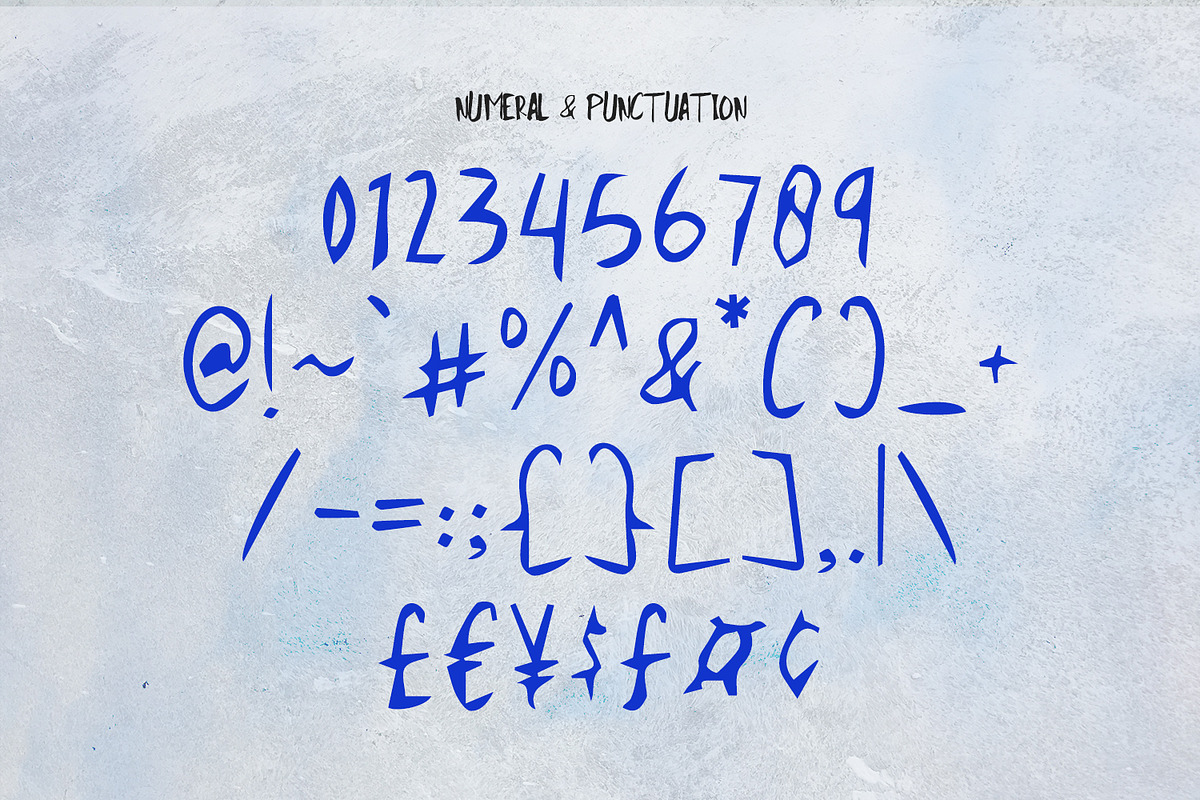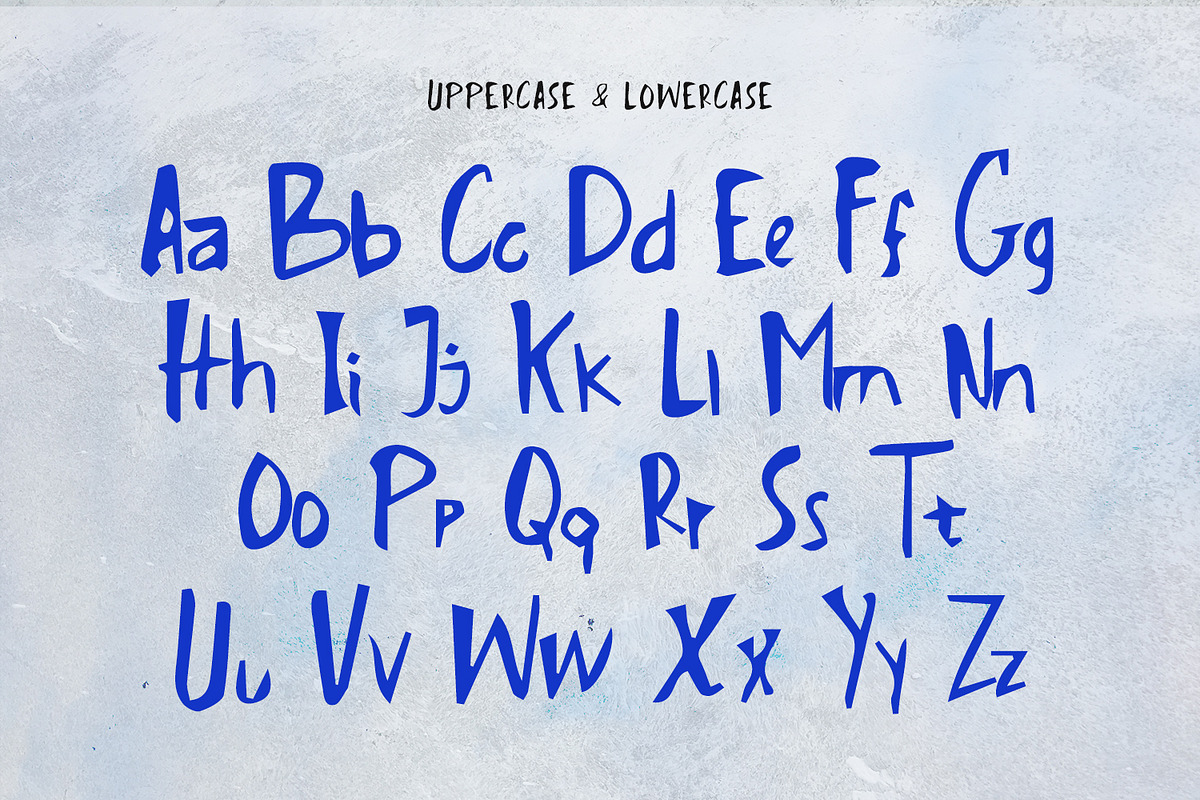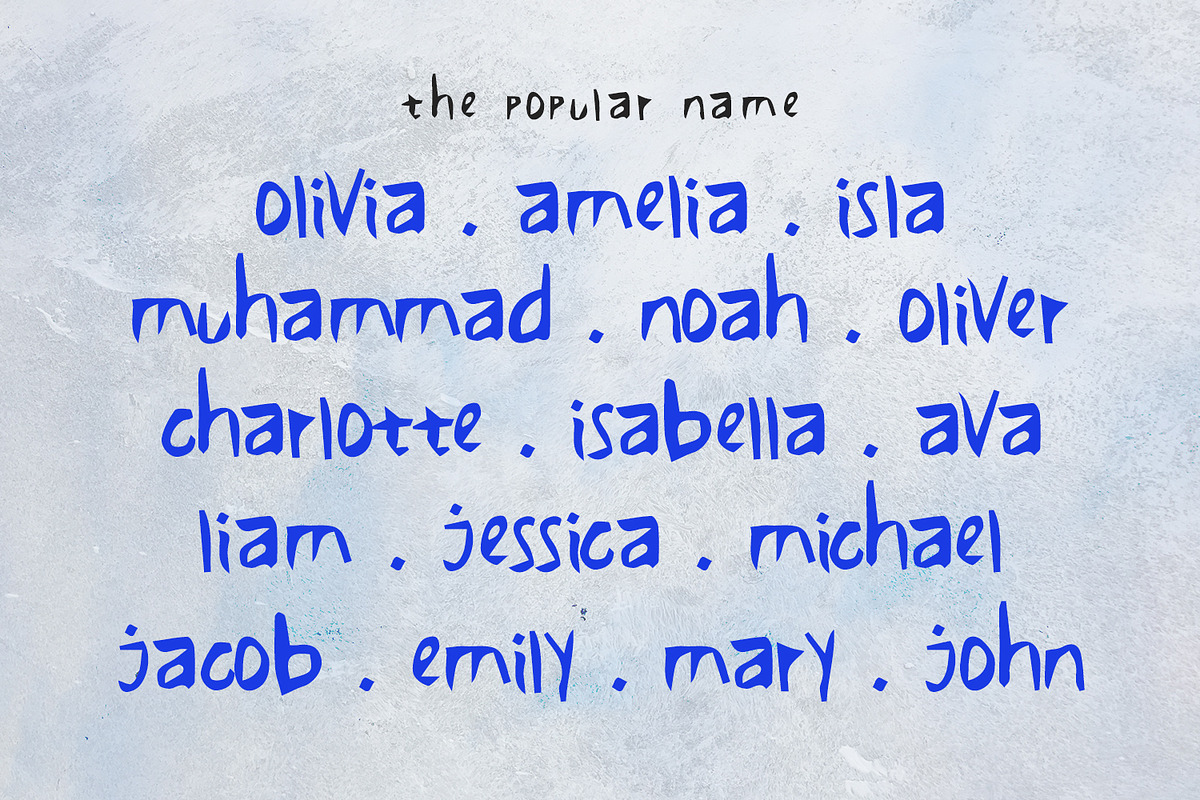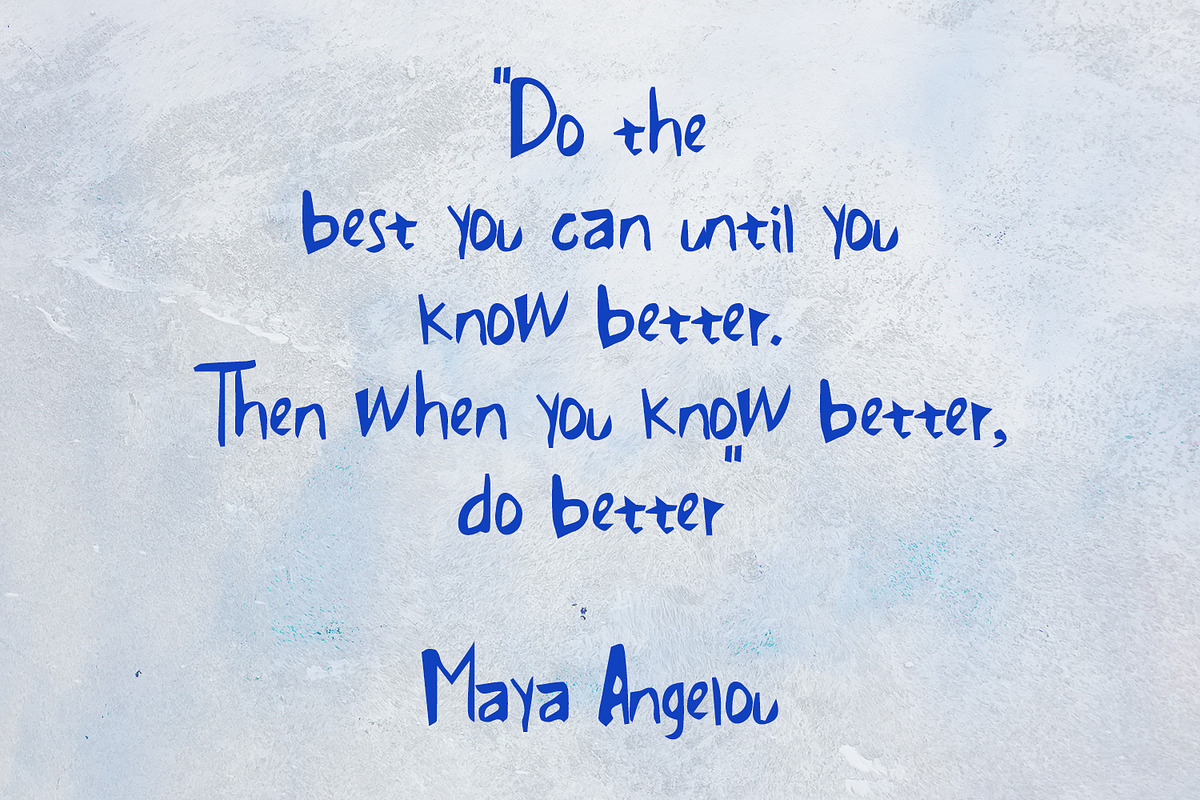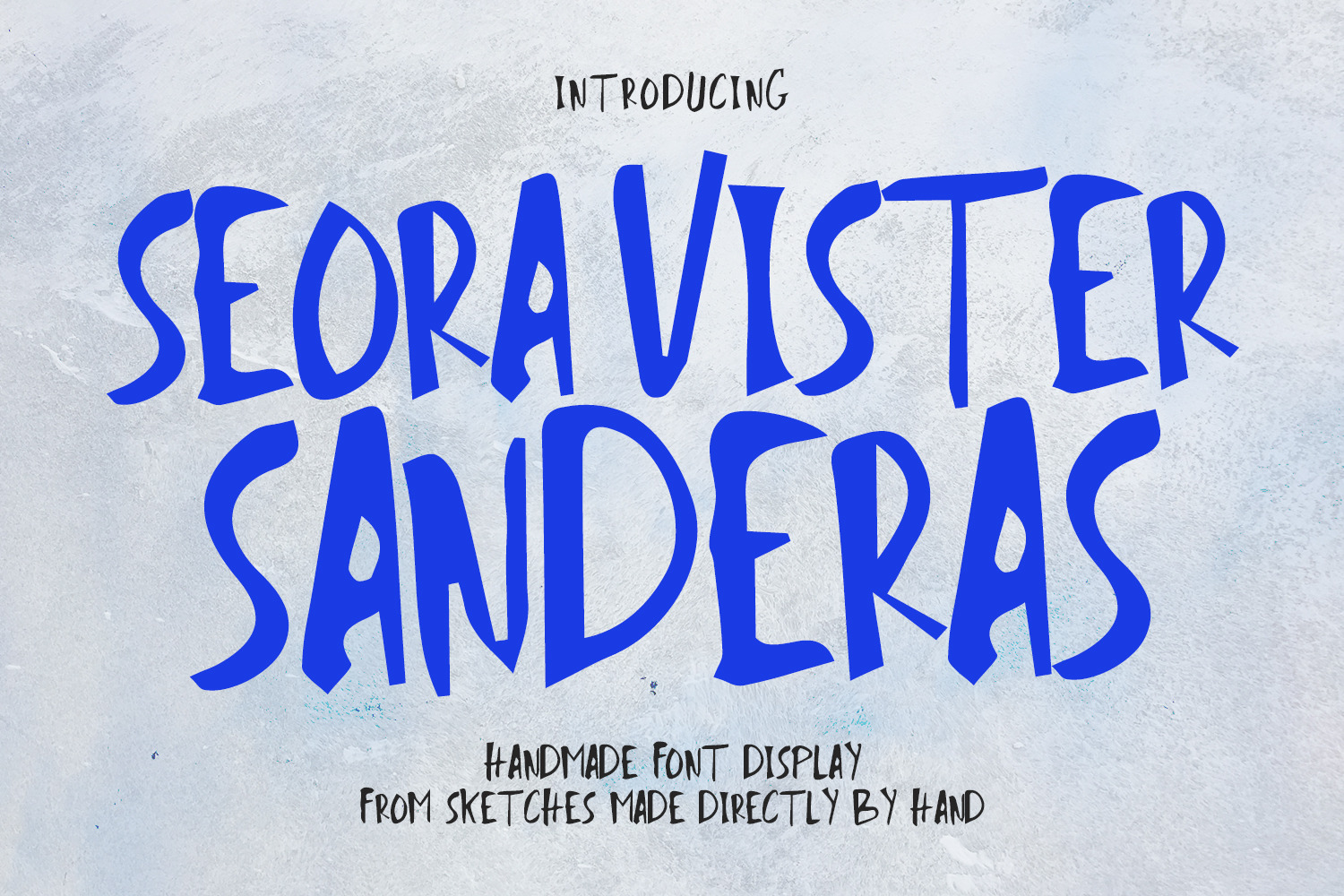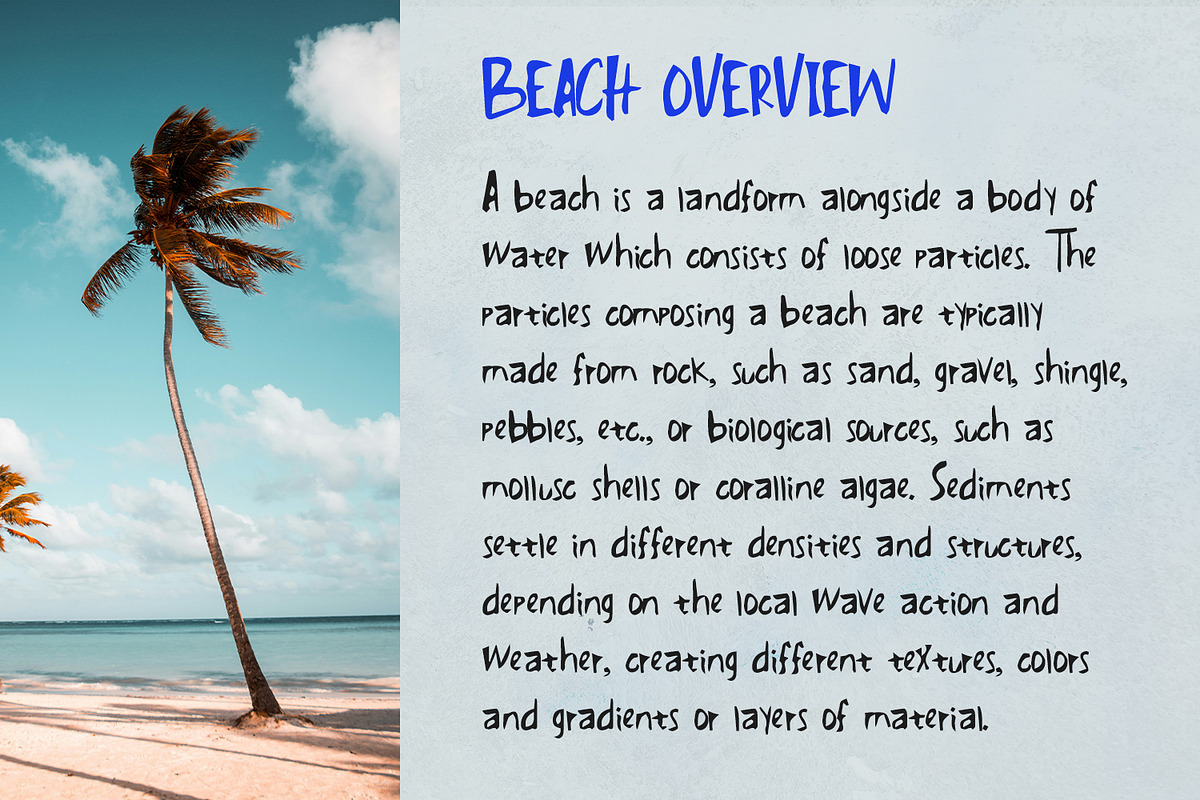
Seora Vister Sanderas Handmade Font
Seora Vister Sanderas is a handmade font display brush font. With fun character with a bit of ligatures and alternates. To give you an extra creative work. Seora Vister Sanderas font support multilingual more than 100+ language. This font is good for logo design, Social media, Movie Titles, Books Titles, a short text even a long text letter and good for your secondary text font with sans or serif. Make a stunning work with Seora Vister Sanderas font.